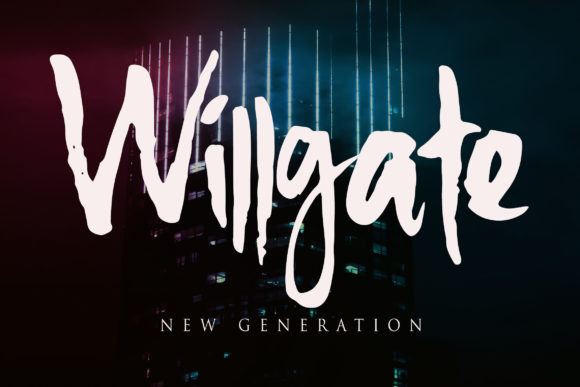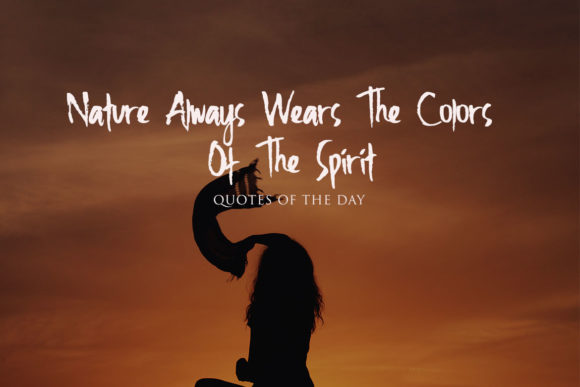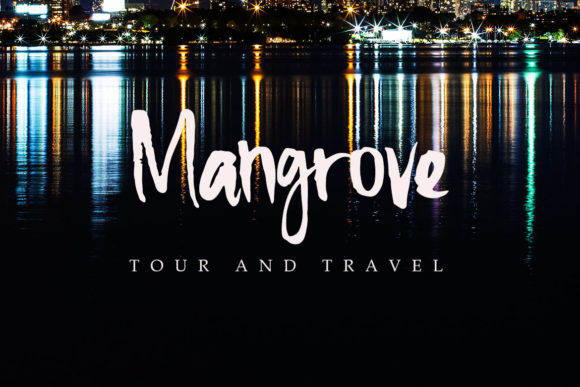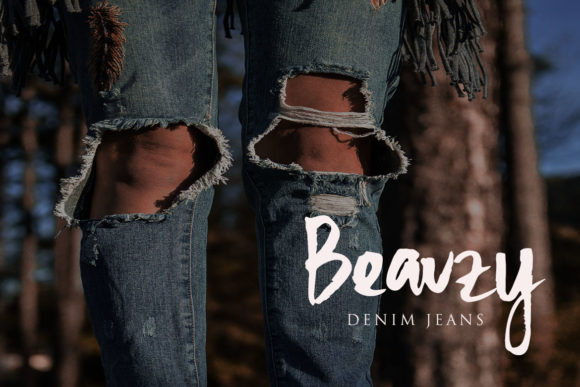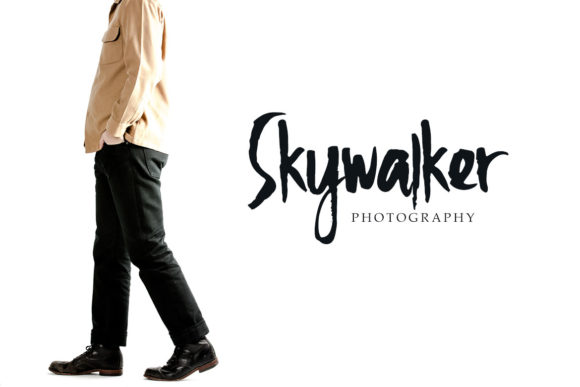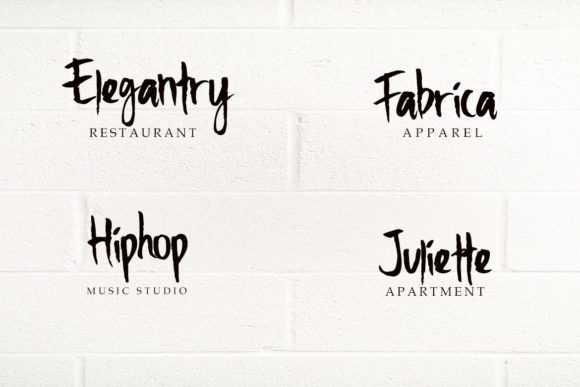
Fighter Font: Unleash Bold Edginess in Your Designs
In the world of typography, fonts play a crucial role in conveying the tone and personality of a design. For designers and crafters looking to add a bold edginess to their projects, the Fighter Font is an excellent choice. This casual brush script font is versatile and suitable for various designs, making it a popular choice among creative professionals.
What is Fighter Font?
Fighter Font is a casual brush script font designed to bring a sense of ruggedness and edginess to your designs. Its unique, hand-brushed strokes give it a distinctive look that sets it apart from other fonts. The font’s casual nature makes it perfect for designs that require a laid-back, yet bold and attention-grabbing approach.
Key Features of Fighter Font
- Bold and Edgy: Fighter Font is designed to make a statement. Its bold strokes and edgy texture give it a rugged charm that’s perfect for designs that require a strong personality.
- Casual Brush Script: The font’s casual brush script style makes it suitable for a wide range of designs, from posters and flyers to social media graphics and blog posts.
- Versatile: Fighter Font can be used for various design projects, including branding, packaging, and advertising.
- Easily Readable: Despite its bold nature, Fighter Font is surprisingly easy to read, making it perfect for designs that require a clear and concise message.
Use Cases for Fighter Font
Fighter Font is a versatile font that can be used in various design projects. Here are some use cases where Fighter Font shines:
- Posters and Flyers: Add a bold edginess to your posters and flyers with Fighter Font. Its attention-grabbing style makes it perfect for promoting events, products, or services.
- Social Media Graphics: Use Fighter Font to create eye-catching social media graphics that stand out in crowded feeds.
- Branding and Packaging: Fighter Font can be used to create bold and memorable brand identities, including logos, packaging, and labeling.
- Blog Posts and Articles: Add a touch of personality to your blog posts and articles with Fighter Font. Its casual nature makes it perfect for lifestyle, fashion, and entertainment content.
Tips for Using Fighter Font
To get the most out of Fighter Font, here are some tips to keep in mind:
- Use it boldly: Fighter Font is designed to make a statement, so don’t be afraid to use it boldly. Experiment with different font sizes and colors to create visual impact.
- Pair it with contrasting fonts: Pair Fighter Font with contrasting fonts to create visual interest. For example, pair it with a clean sans-serif font to create a striking contrast.
- Experiment with colors: Fighter Font looks great in bold colors. Experiment with different colors to find the perfect match for your design.
Fighter Font is a versatile and bold font that’s perfect for designers and crafters looking to add a touch of edginess to their projects. Its casual brush script style makes it suitable for various designs, from posters and flyers to social media graphics and blog posts. With its bold strokes and easily readable texture, Fighter Font is sure to make a statement in your designs.